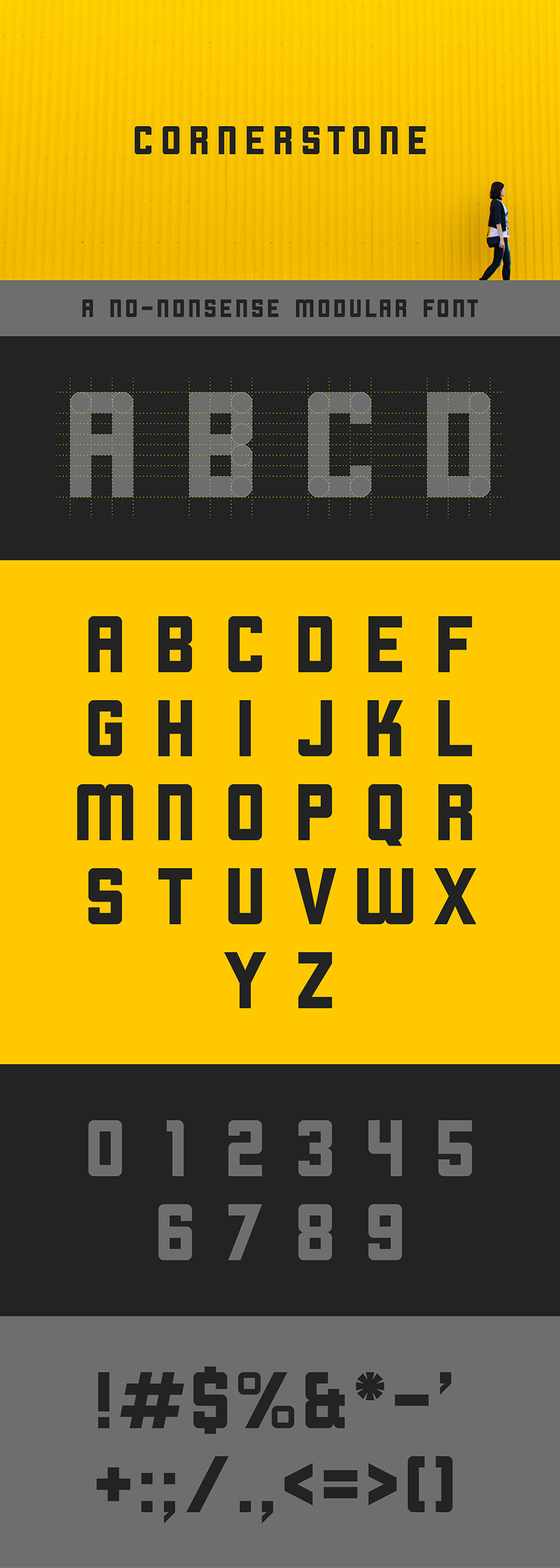
Cornerstone Typeface
Cornerstone Typeface is a free no-nonsense modular font. The display font is designed and released by Zac Freeland and available for download in ttf format on his Behance page.